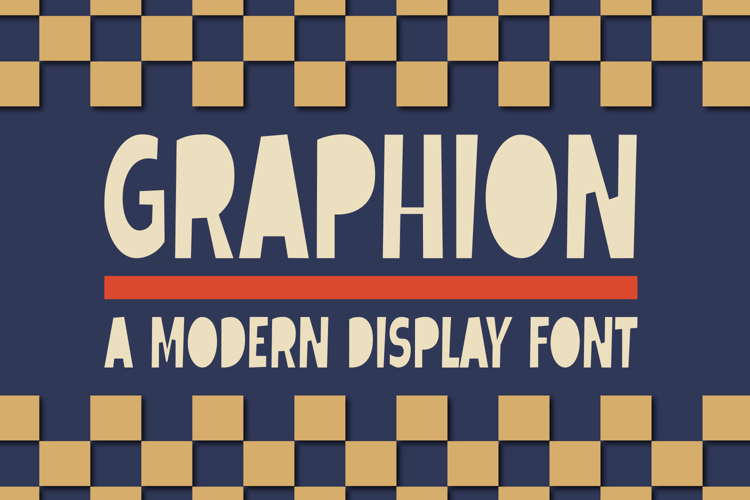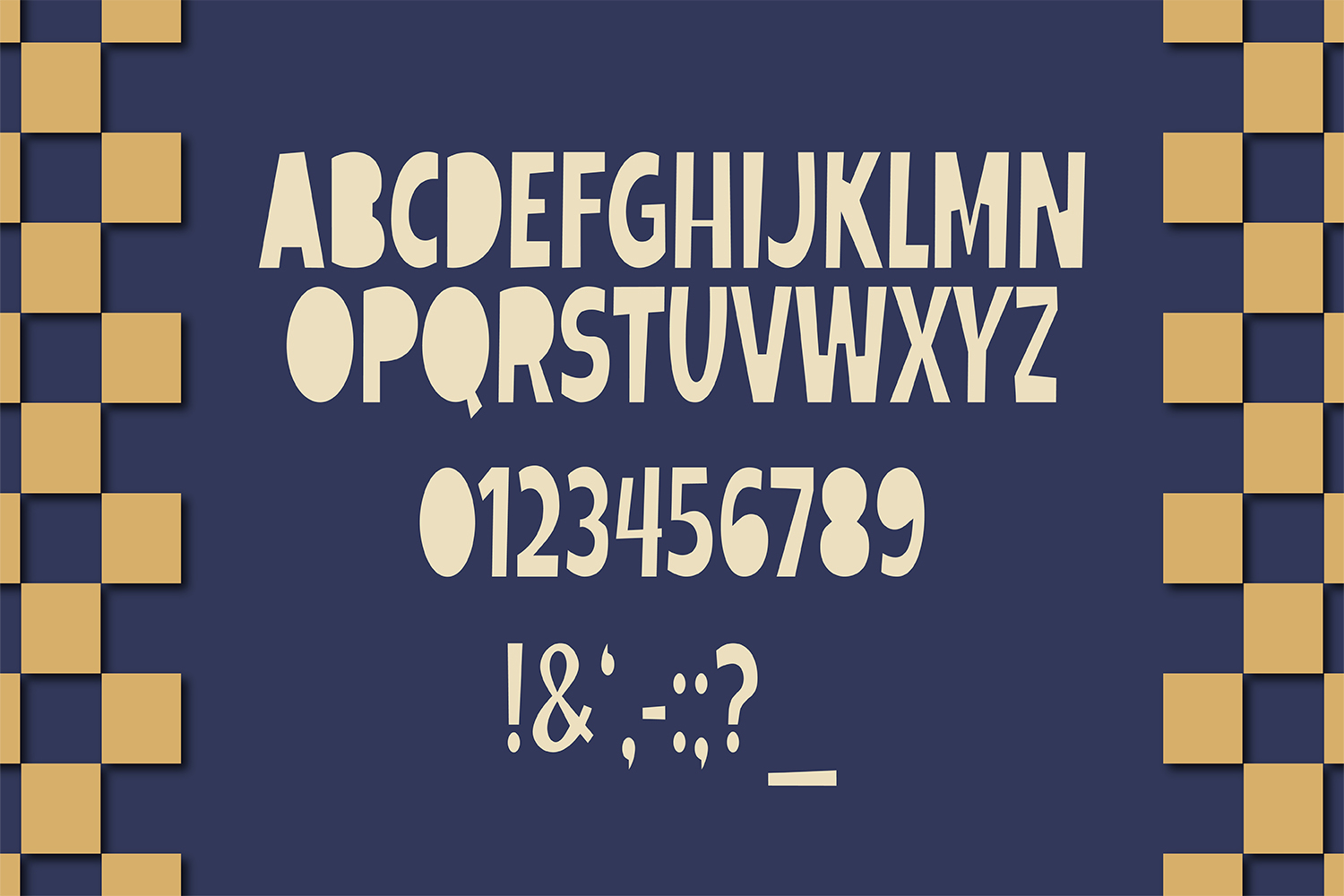
Graphion is a bold modern display font with playful geometric details, designed to make your titles stand out. Its strong shapes and unique character design bring a contemporary yet creative touch, perfect for posters, merchandise, branding, packaging, social media, and more.
Whether you’re working on retro-inspired visuals or modern digital projects, Graphion adds personality and impact to every design.
* Full uppercase alphabet
* Numbers and punctuation
* Posters & flyers
* Logo & branding
* Merchandise & apparel
* Social media graphics
* Creative display projects